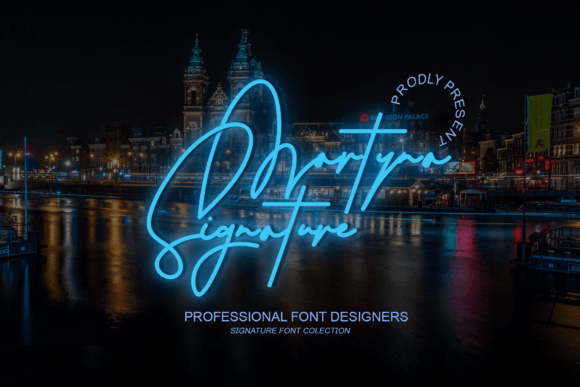
Adorn your designs with the Martyna Signature Font, an enchanting script font embodying the essence of elegance and playfulness. Its remarkable adaptability makes it a perfect fit for an array of creative endeavors, effortlessly transforming your projects into masterpieces.
Step into a world of limitless creativity with Martyna Signature. With its captivating charm, this font elevates your words, giving them a captivating allure. Experience the joy of crafting stunning logos, alluring branding, heartfelt invitations, eye-catching social media posts, and captivating website designs that leave a lasting impression.
Martyna Signature seamlessly blends sophistication and approachability, adding a touch of whimsy to your creations. Its graceful strokes and charming ligatures dance across the page, captivating your audience with their visual elegance. Embrace the power of this font to transform ordinary designs into extraordinary works of art.
As a font crafted by Preketek Texs, Martyna Signature is a testament to creativity and innovation. Its versatility knows no bounds, allowing you to explore a myriad of design possibilities. Whether you're crafting heartwarming quotes, enchanting invitations, or dynamic logos, this font becomes an extension of your imagination, breathing life into your visions.